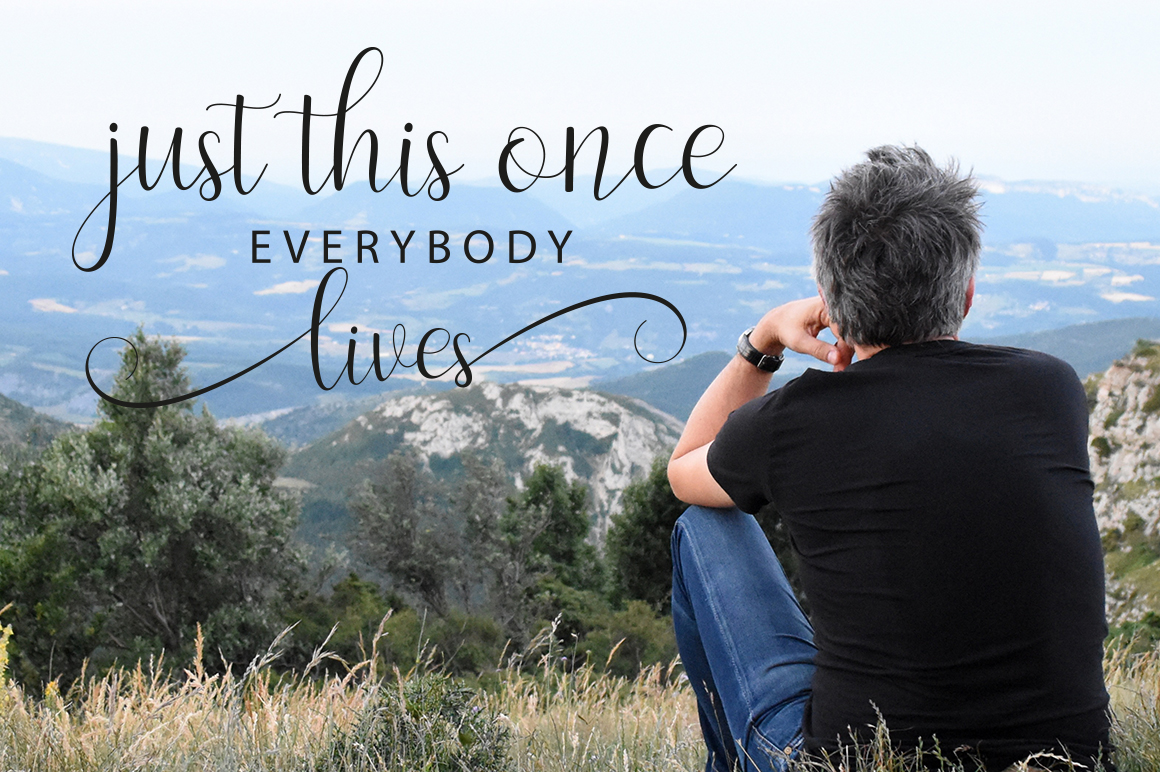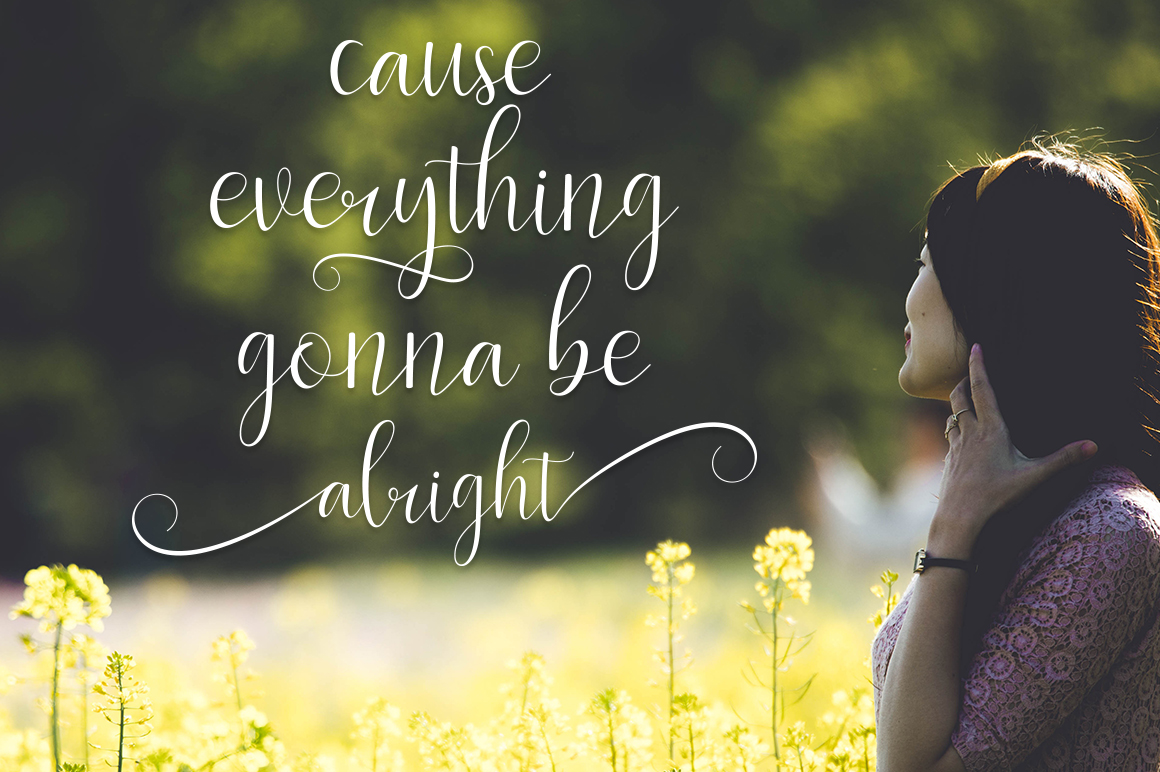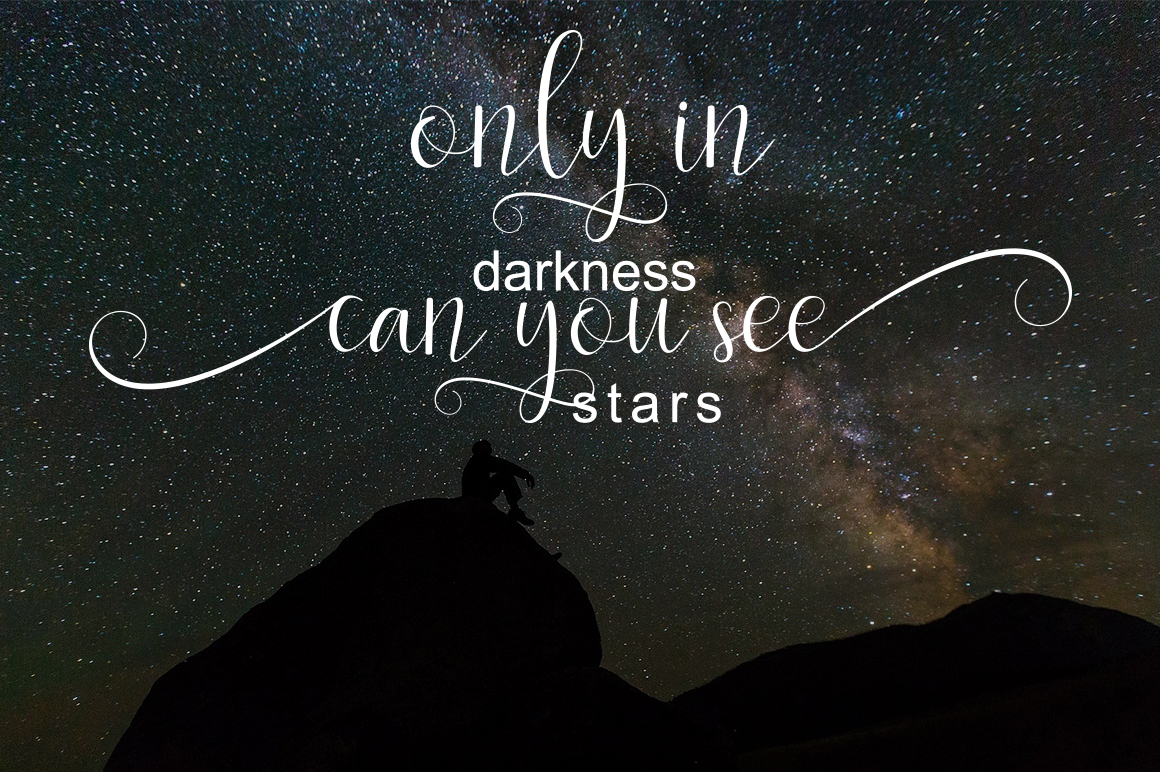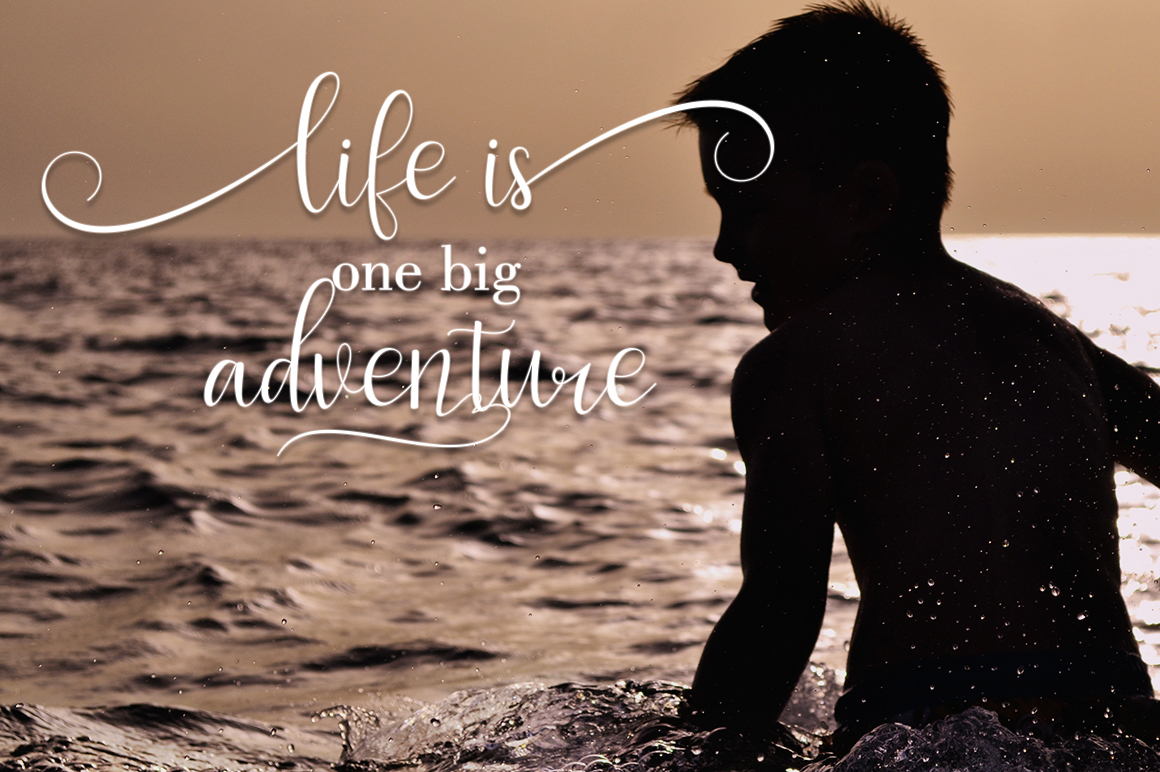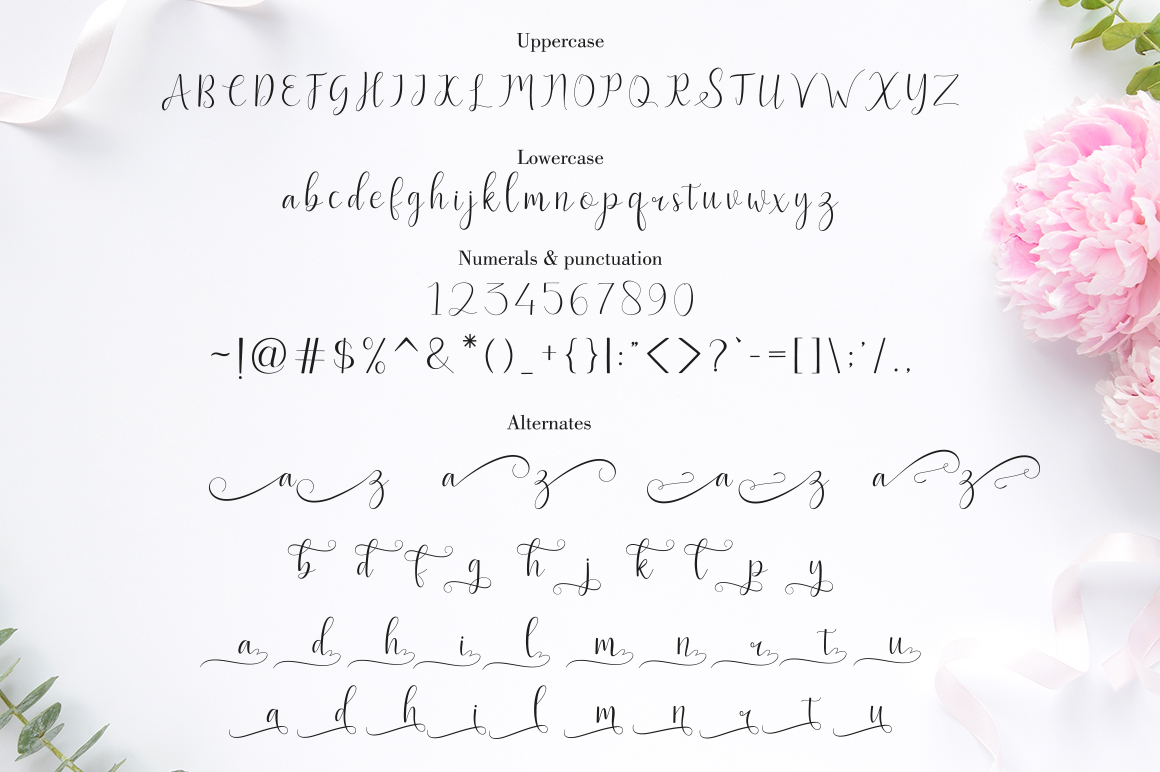
Bentley Script Font: Elevate Your Designs with Elegance and Charm
In the world of typography, few fonts capture the essence of romance and sophistication as effortlessly as the Bentley Script Font. This modern calligraphy style font has been gaining popularity among designers and crafters for its charming and elegant appearance, making it an ideal choice for headlines and designs that require a touch of luxury. With its extensive range of alternates, Bentley Script offers a maximization of options, allowing designers to push the boundaries of creativity and bring their visions to life.
The Characteristics of Bentley Script Font
Bentley Script Font is a true masterpiece of modern calligraphy. Its fluid strokes, intricate connections, and delicate flourishes evoke a sense of romance and whimsy, perfect for designs that require a touch of elegance. The font’s charming and romantically inclined style makes it an excellent choice for a wide range of design projects, from wedding invitations and stationery to branding and advertising materials.
One of the standout features of Bentley Script Font is its extensive range of alternates. With tons of options to choose from, designers can experiment with different variations of the font to create unique and captivating designs. Whether you’re looking to add a touch of sophistication to a headline or create a beautiful piece of artwork, Bentley Script Font provides the perfect tools to bring your creative vision to life.
The Benefits of Using Bentley Script Font
So, why should designers and crafters choose Bentley Script Font for their projects? Here are just a few benefits of using this stunning font:
- Elegance and Sophistication: Bentley Script Font adds a touch of luxury and sophistication to any design, making it perfect for high-end branding and advertising materials.
- Versatility: With its extensive range of alternates, Bentley Script Font can be used for a wide range of design projects, from wedding invitations to packaging design.
- Romantic and Whimsical: The font’s charming and romantically inclined style makes it perfect for designs that require a touch of whimsy and romance.
- Easy to Read: Despite its intricate and delicate appearance, Bentley Script Font is surprisingly easy to read, making it perfect for body text and headlines.
How to Use Bentley Script Font in Your Designs
Using Bentley Script Font in your designs is easy and straightforward. Here are a few tips to get you started:
- Pair it with a Sans-Serif Font: Pair Bentley Script Font with a sans-serif font to create a beautiful contrast between the elegant script font and the clean, modern sans-serif font.
- Experiment with Alternates: Don’t be afraid to experiment with the font’s extensive range of alternates to create unique and captivating designs.
- Use it for Headlines and Titles: Bentley Script Font is perfect for headlines and titles, where its elegant and sophisticated appearance can really shine.
- Add a Touch of Whimsy: Use Bentley Script Font to add a touch of whimsy and romance to your designs, whether it’s a wedding invitation or a packaging design.
| Font Name | Bentley Script Font |
| Author | Amarlettering |
In conclusion, Bentley Script Font is a modern calligraphy style font that is perfect for designers and crafters looking to add a touch of elegance and sophistication to their designs. With its extensive range of alternates, charming and romantically inclined style, and ease of use, Bentley Script Font is an excellent choice for a wide range of design projects. Whether you’re looking to create a beautiful piece of artwork or simply want to add a touch of luxury to your designs, Bentley Script Font is sure to impress.